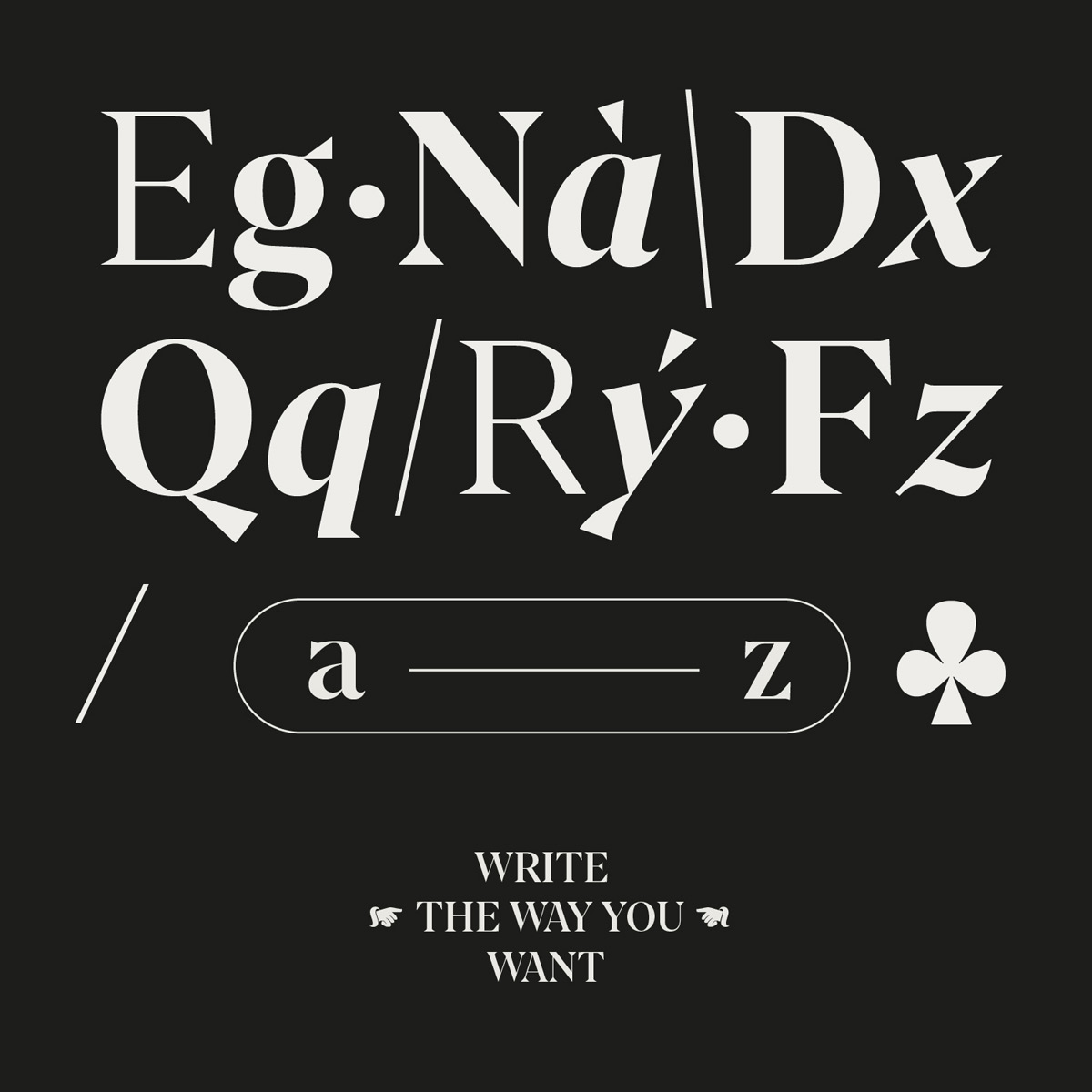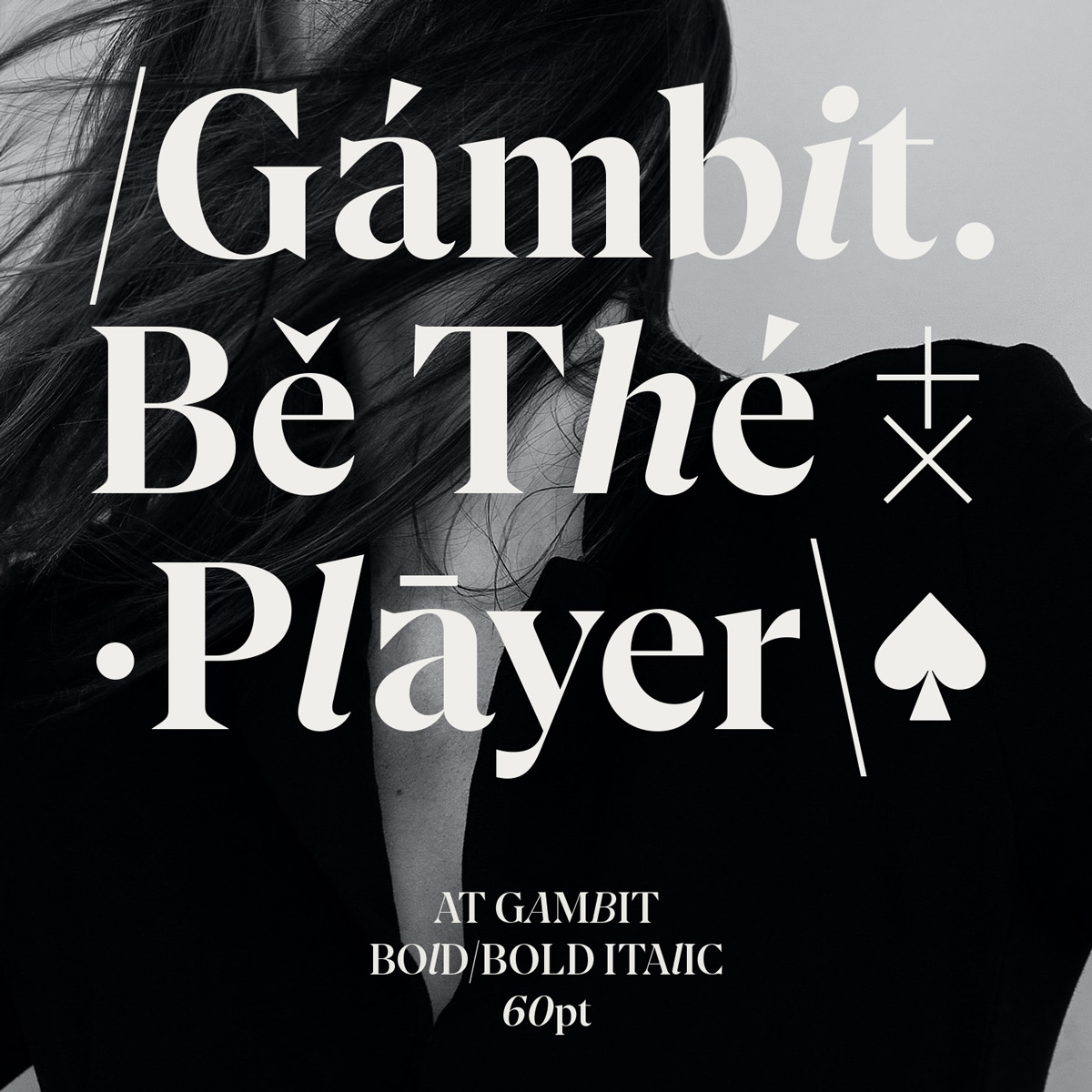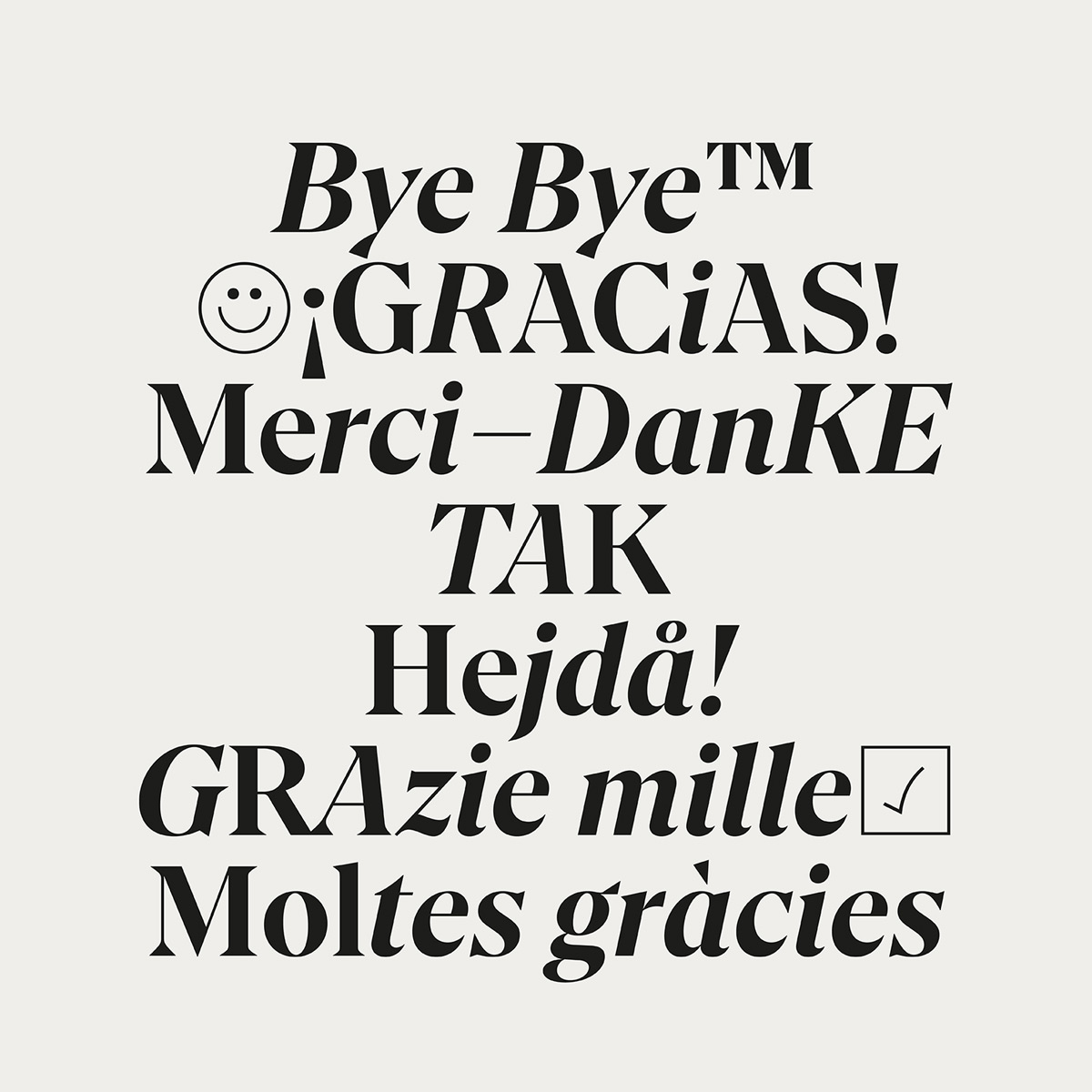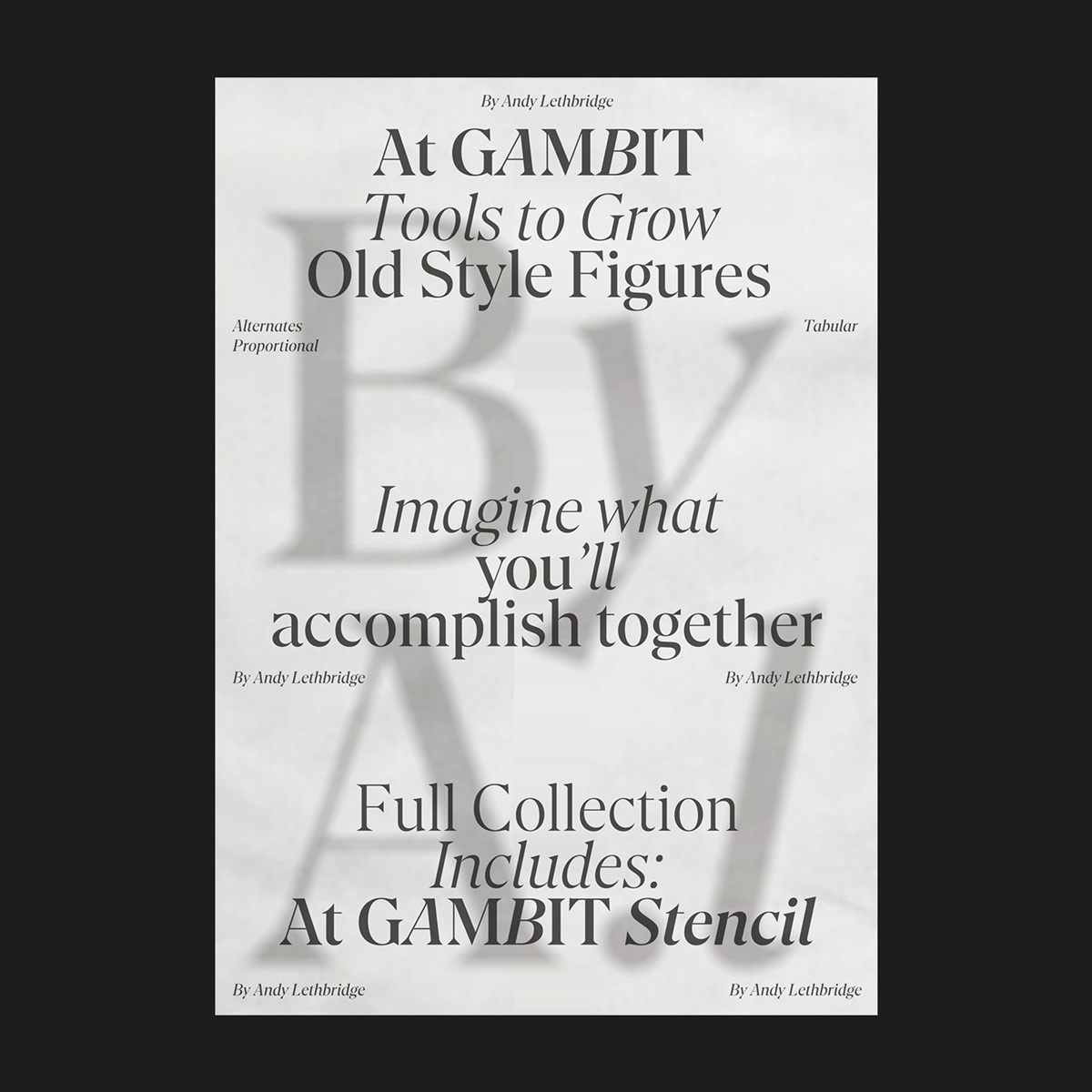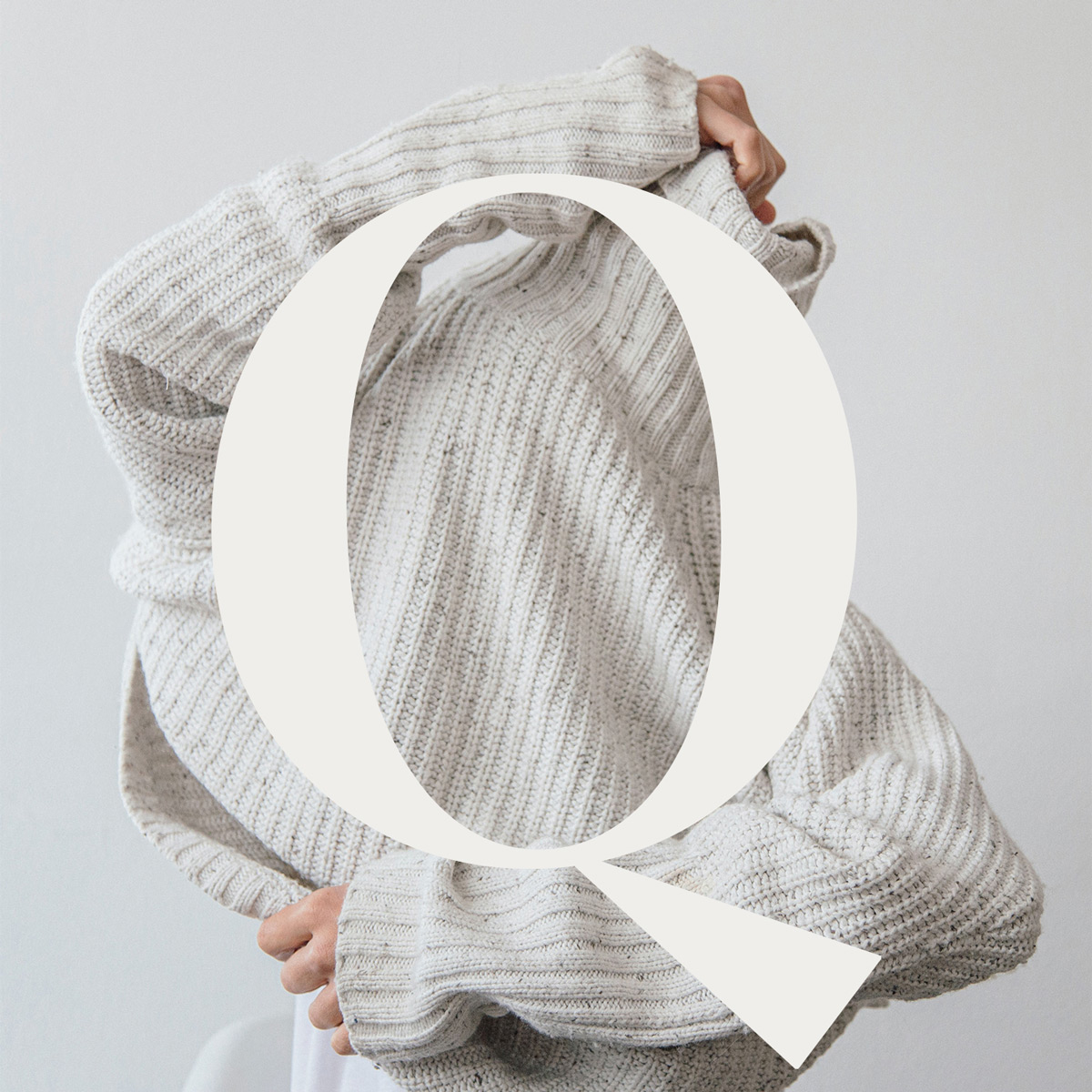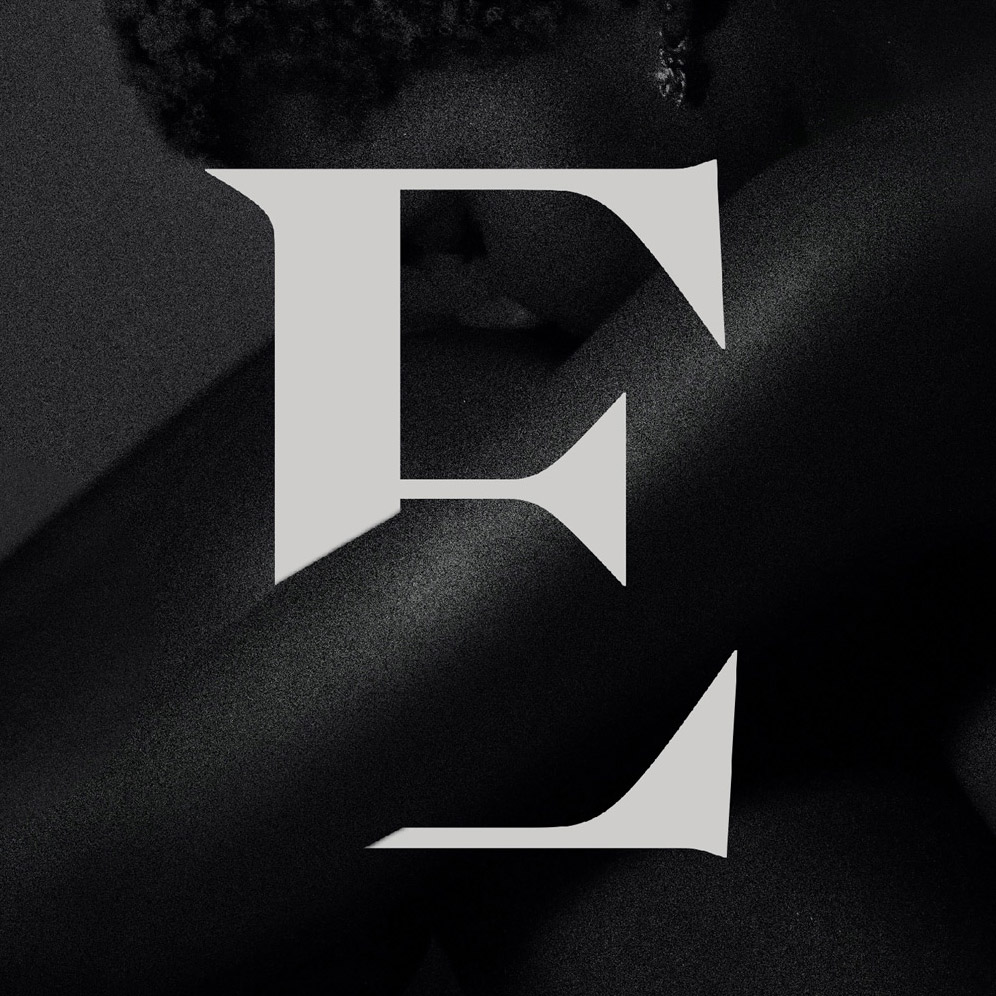
At Gambit Font Family – With a modern style, the lines are designed to be sharp and delicate thanks to the high contrast structure and soft angled wedge-shaped lines. A powerful font style with refined details and meticulously designed shapes.
Gambit Font is optimized for top quality performance in branding and editorial design. With a variety of fonts, this font is suitable for many different design projects from long text to large display text.
Gambit includes 11 styles from Light to Black so you can easily use it for any design. Also included are chess and lettering symbols and some impressive number sets.
At Gambit Font Family preview 2
At Gambit Font Family preview 3
At Gambit Font Family preview 4
At Gambit Font Family preview 5
At Gambit Font Family preview 6
At Gambit Font Family preview 7